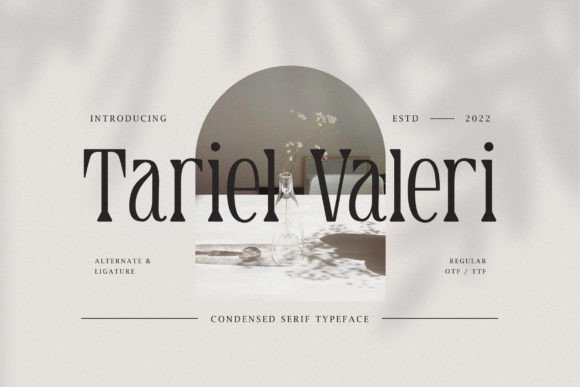
Welcome to the realm of sophistication and timeless allure, where Tariel Valeri Font reigns supreme. This condensed serif font, a creation of the esteemed TypeFactory, is an artistic masterpiece that will elevate your designs to new heights of elegance and charm. Step into a world where typography meets art, where each letter is a brushstroke of beauty, captivating the hearts of discerning designers and leaving an unforgettable impression on your audience. Indulge in the luxury of Tariel Valeri Font and witness the transformation of your creative vision into a symphony of visual delight.
With Tariel Valeri Font gracing your designs, you'll unlock a world of creative possibilities. Envision a logo that exudes sophistication, a branding suite that radiates class, or an editorial design that oozes timeless elegance. Craft woman magazines that captivate readers with their allure, or create cosmetic branding that reflects the essence of beauty and grace. Fashion promotions will come alive with a touch of Tariel Valeri's charm, while art galleries and museums will find a font that complements their artistic aura. Boutique branding will exude exclusivity, stationery designs will radiate personal elegance, and blog designs will captivate readers with their unique charm.
The versatility of Tariel Valeri Font knows no bounds. It seamlessly adapts to modern advertising designs, adding a touch of sophistication to marketing campaigns. Card invitations adorned with Tariel Valeri's elegance will leave a lasting impression on your guests, while art quotes and home decor items will radiate an artistic flair. Book and cover titles will command attention with their timeless appeal, and special events will be elevated to new heights of grandeur. Whether you're creating posters, brochures, or social media graphics, Tariel Valeri Font will infuse your designs with a touch of magic, transforming the ordinary into the extraordinary.